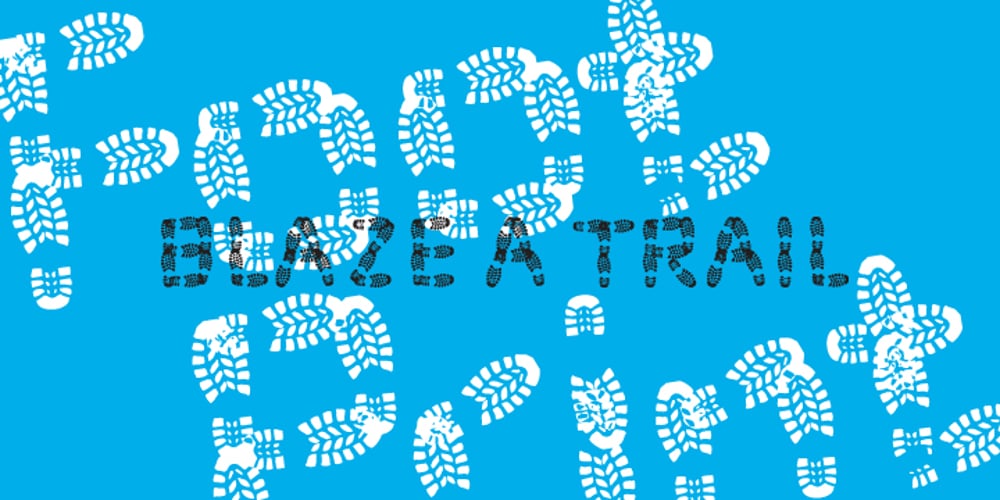
Foot Print Font Family was designed by Jan Bunk and published by Bureau Bunk. Foot Print contains 1 styles and family package options. While Walking along the shore of our Main Port to Europe in Rotterdam, The Netherlands, my 14 year old son Jules first hardly dared to step in the mud for he was wearing his brand new sneakers. Concentrating in where he put his feet, he noticed he made a character! The FootPrint-Regular was born! The FootPrint-Regular is a powerful header-typeface, but funny enough it’s usable as small copy too! Blaze your Trail! Anything you can imagine on Police investigations, Bloodhound Thrillers, Trails, Tracks and Traces, anything about Outdoor Stores, Tracking or even maybe Pedestrian Clubs, or things like Survival Sports, Walking Events or Hiking Gear; Blaze’m your FootPrint-Regular Trail on all Banners, Blimps, Ads and Doormats!